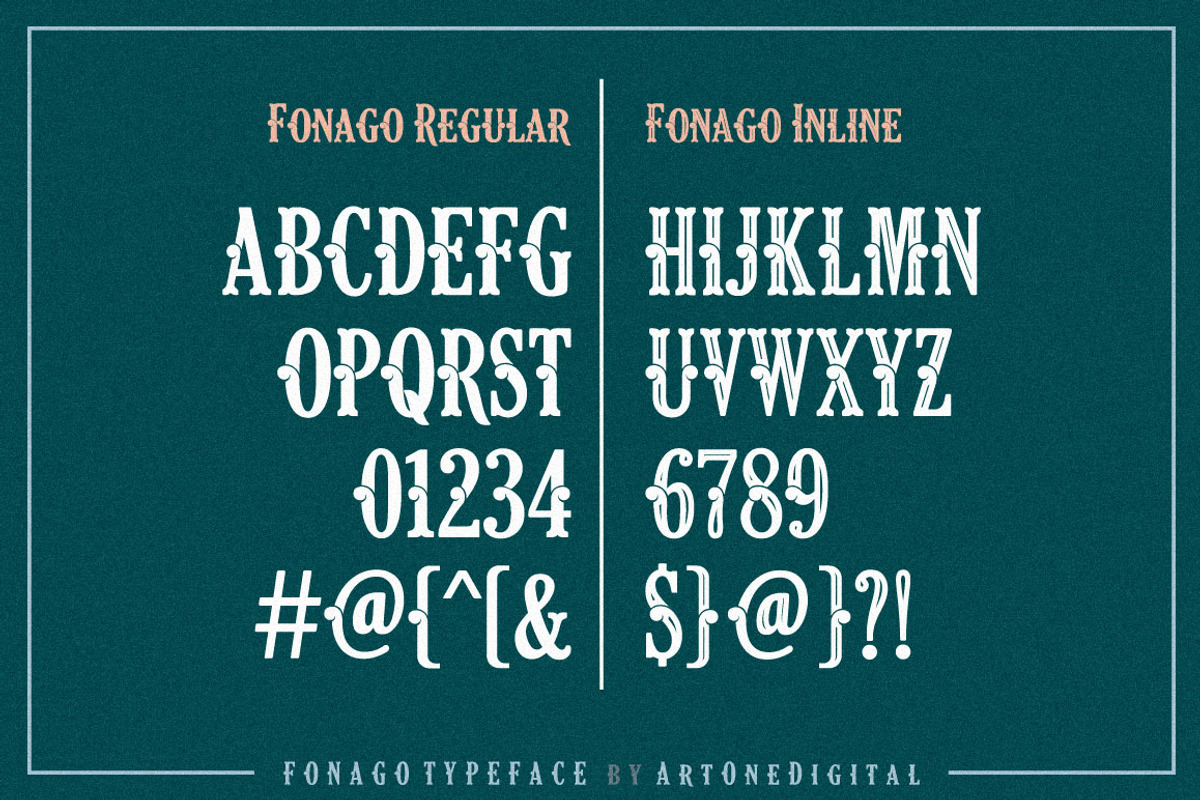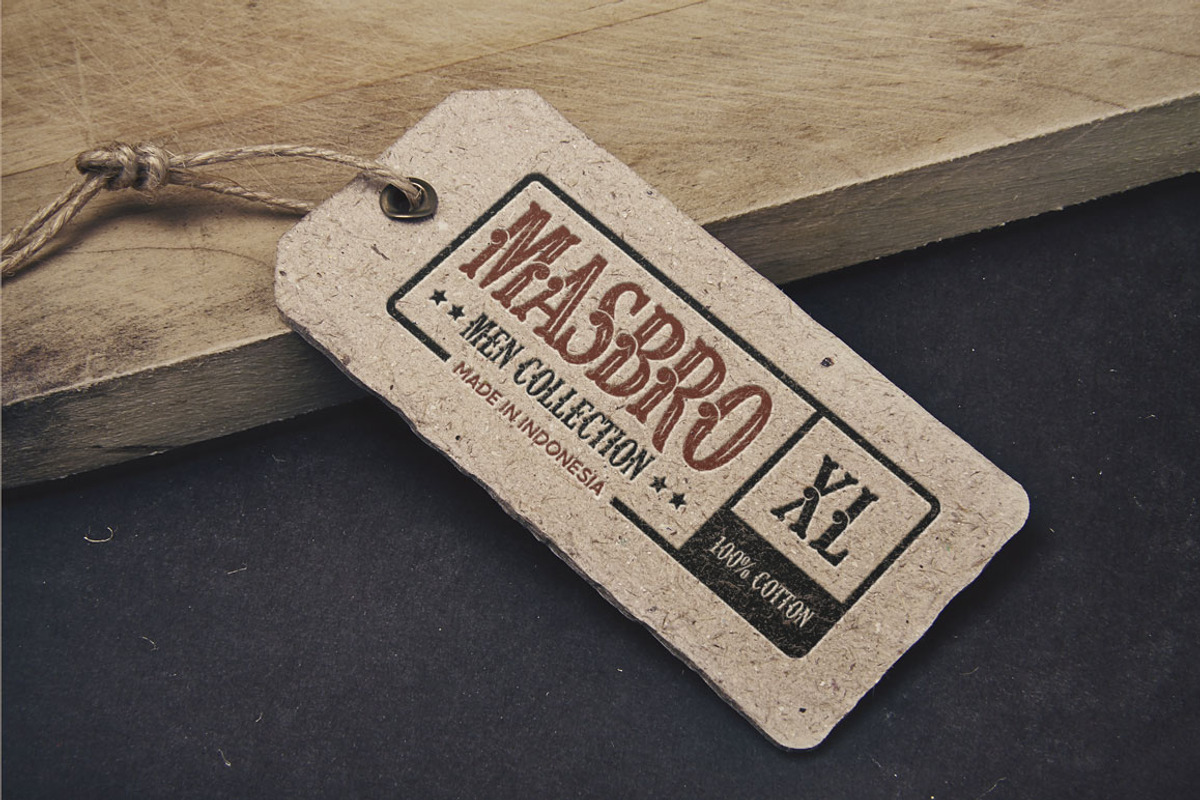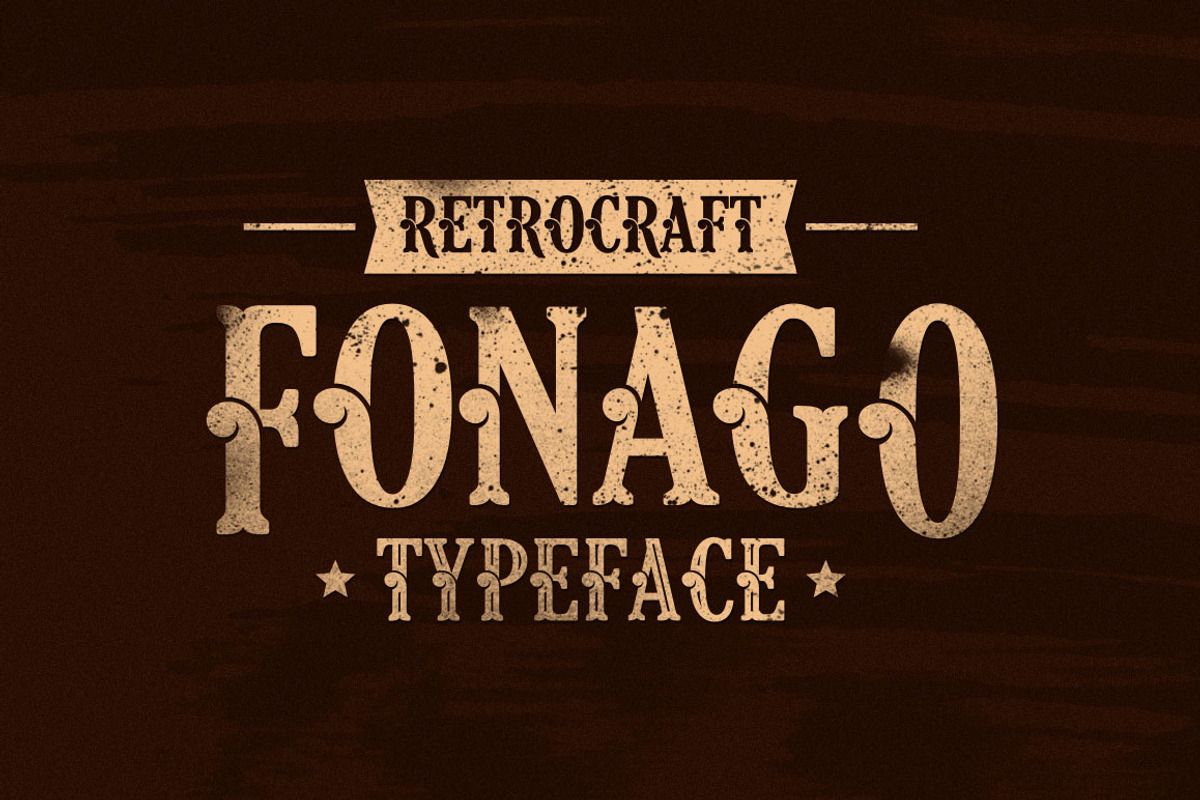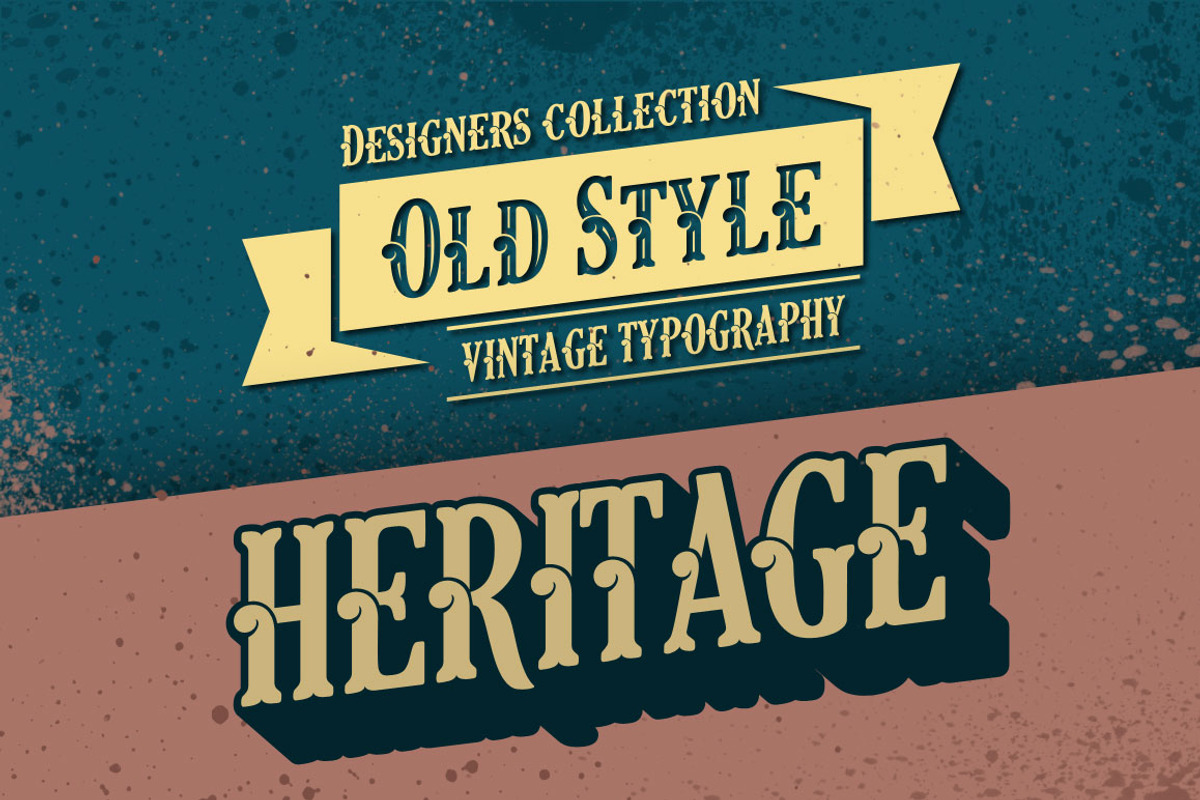
Fonago Typeface
Fonago Typeface by Locomotype is a font selected for branding, posters, packaging, typography.
- Fonago comes with 228 glyphs and available in Regular and Inline style.
Why Fonago Typeface is worth a look
Fonago Typeface by Locomotype fits naturally into Branding, posters, packaging, typography.